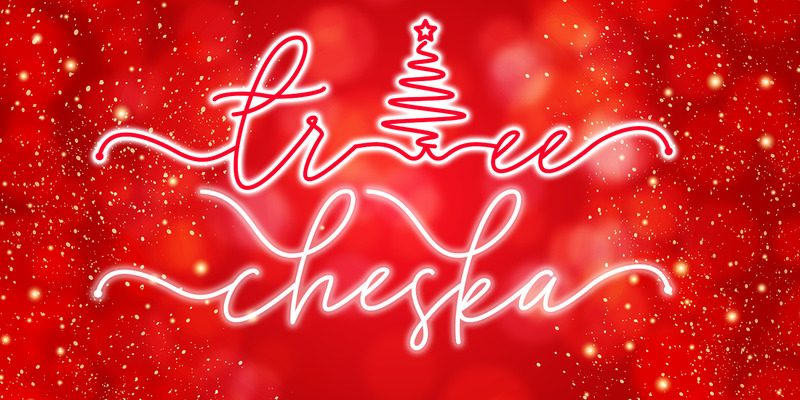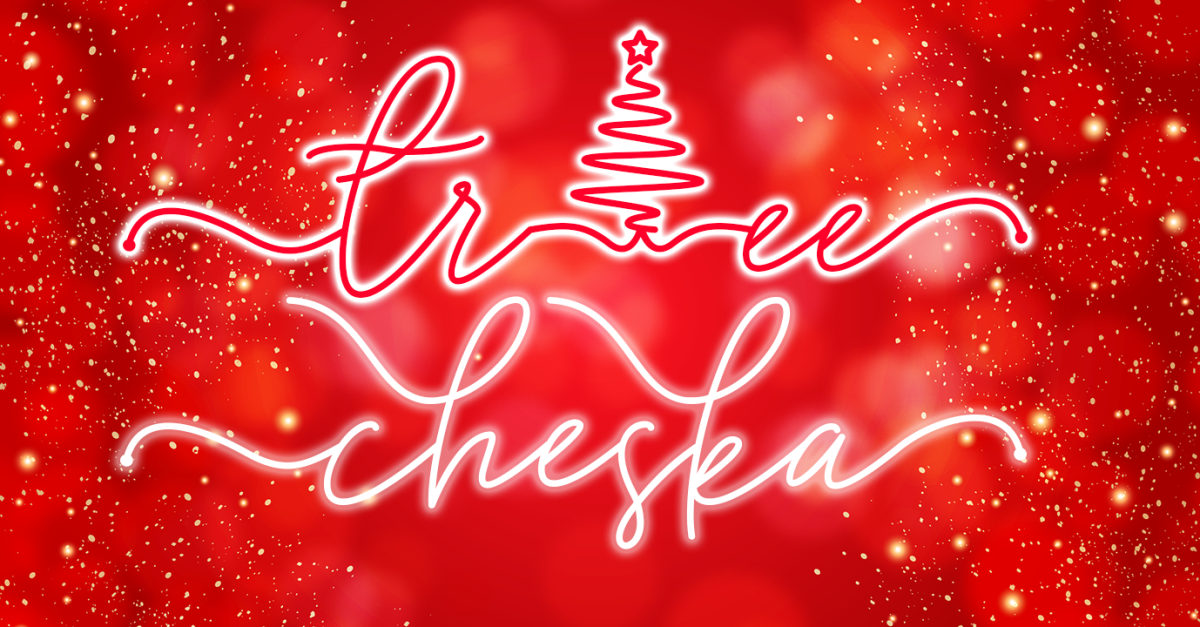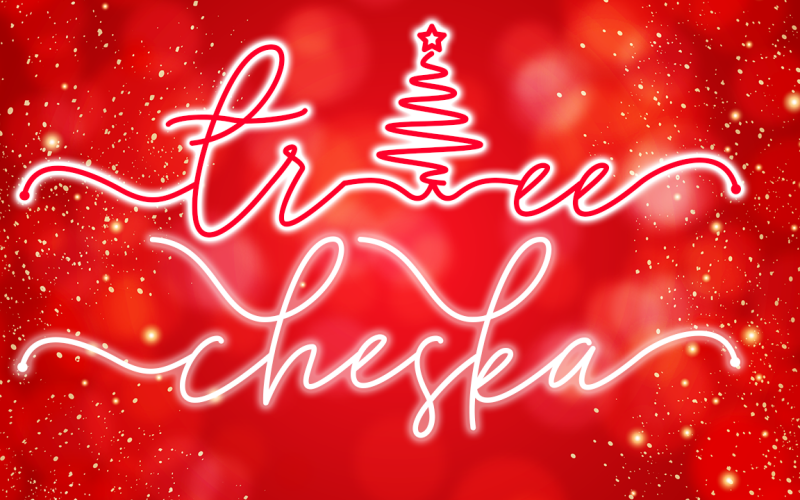
Tree Cheska Font
Tree Cheska monoline script font which natural movement and suitable for theme christmas and other. is perfect for branding projects, logo, wedding designs, social media posts, advertisements, product packaging, product designs, label, photography, watermark, invitation, stationery and any projects that need handwriting taste.
Standard Glyphs
Ligature & Swash